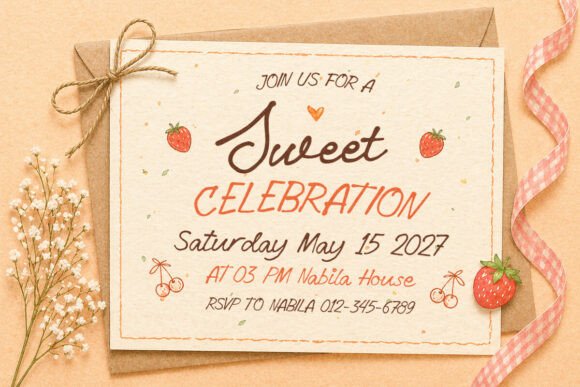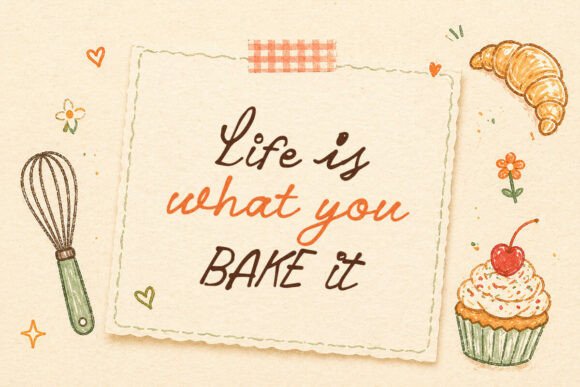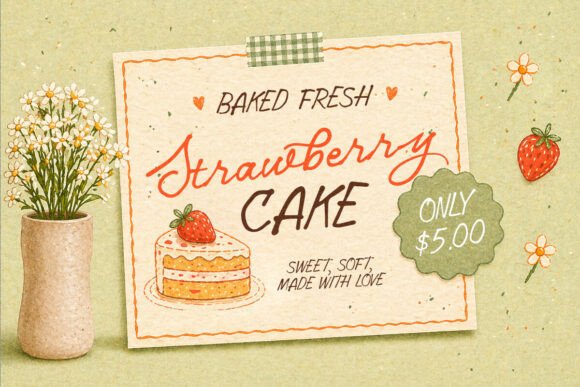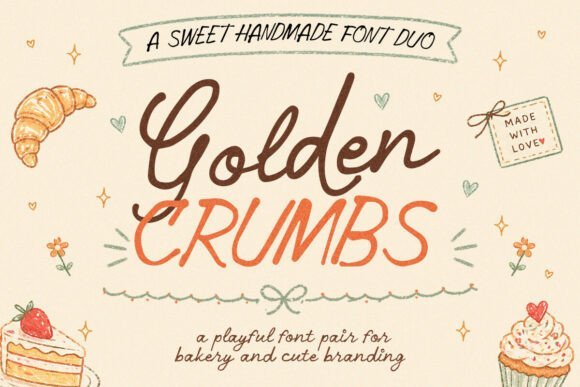
Introduction to Golden Crumbs Font
Golden Crumbs comes in warm and delightful, mixing a soft handwritten script with a playful sans that feels like fresh treats straight out of the oven.
It carries a cozy, cute vibe with a hint of vintage charm, making it just right for bakery logos, packaging, menus, and branding that want to feel friendly, tasty, and full of joy Lighthearted and easy to use, this duo sprinkles a bit of happiness into every design.